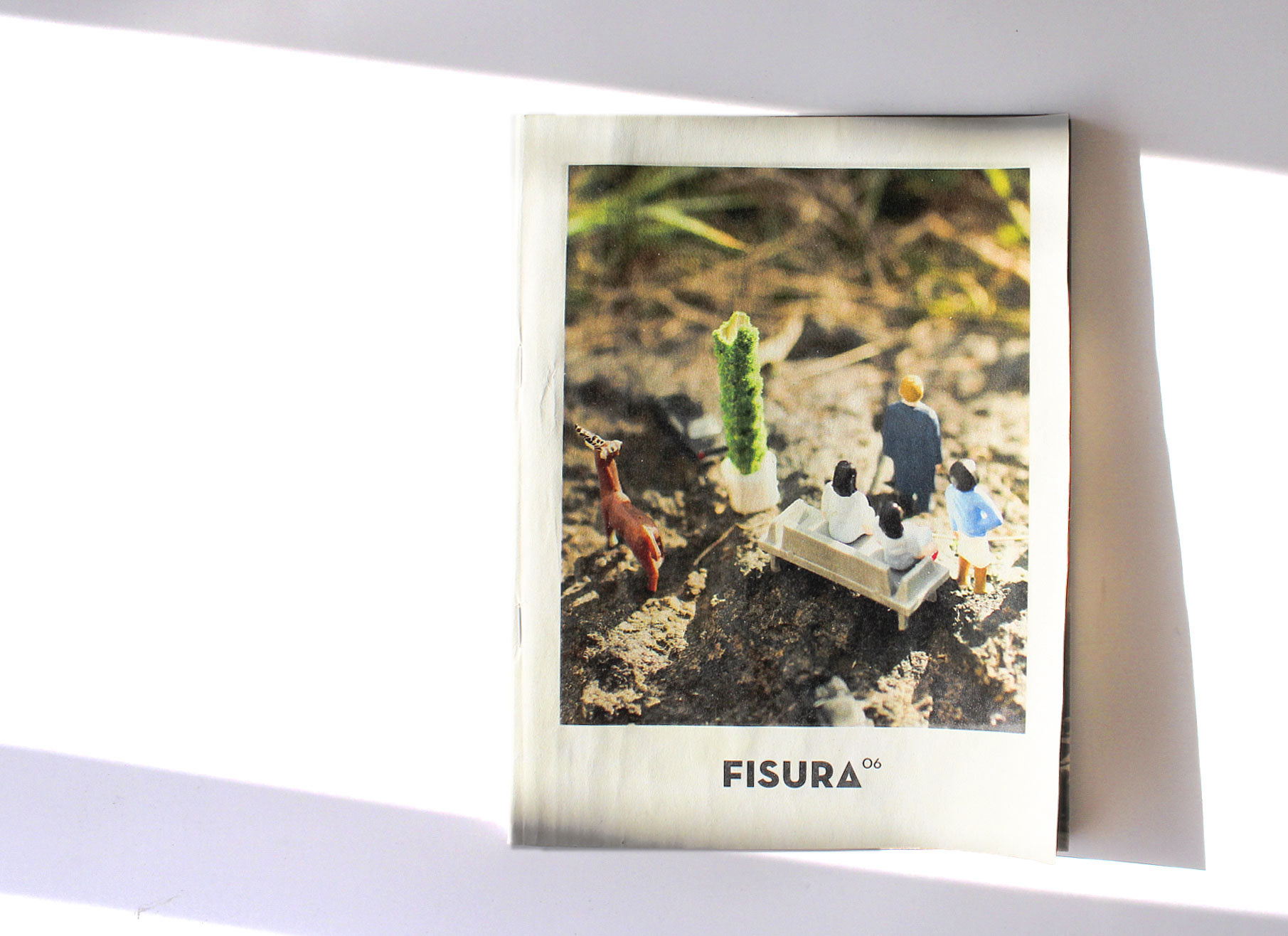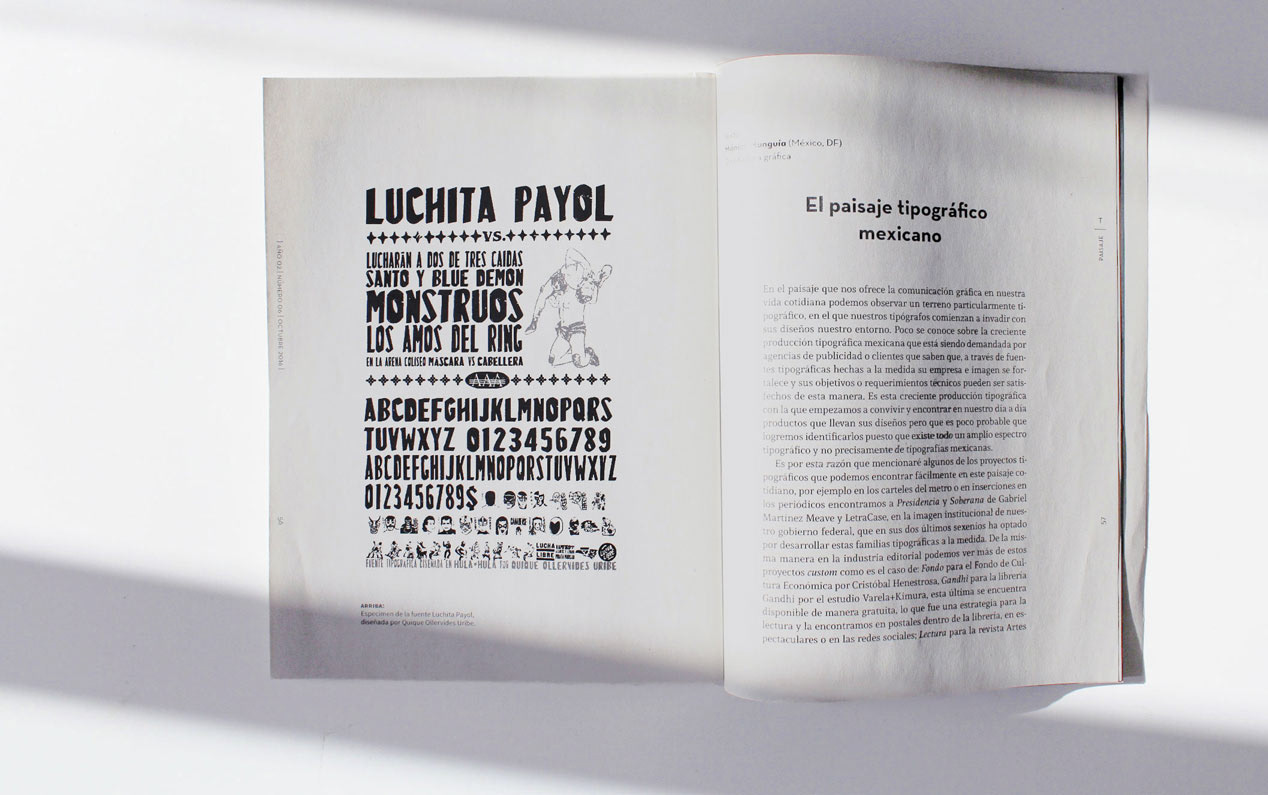
Fisura magazine invited me to talk about the theme of landscape, which I approached from the typographic field. I talkeda bit about typographic production in Mexico, which at that time was beginning to be present in our daily lives and more custom design projects were beginning to be seen.